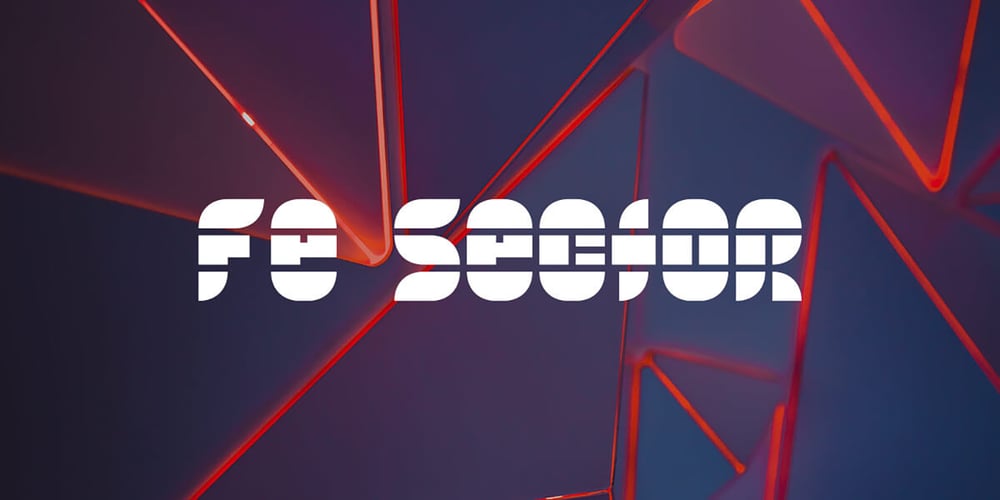
FE Sector
FE Sector font
FE Sector Font Family was designed by Egor Stremousov and published by Egor Stremousov. FE Sector contains 1 styles and family package options. FE Sector is made up of sectors and sticks. it is intended to create various patterns and decorative titles.